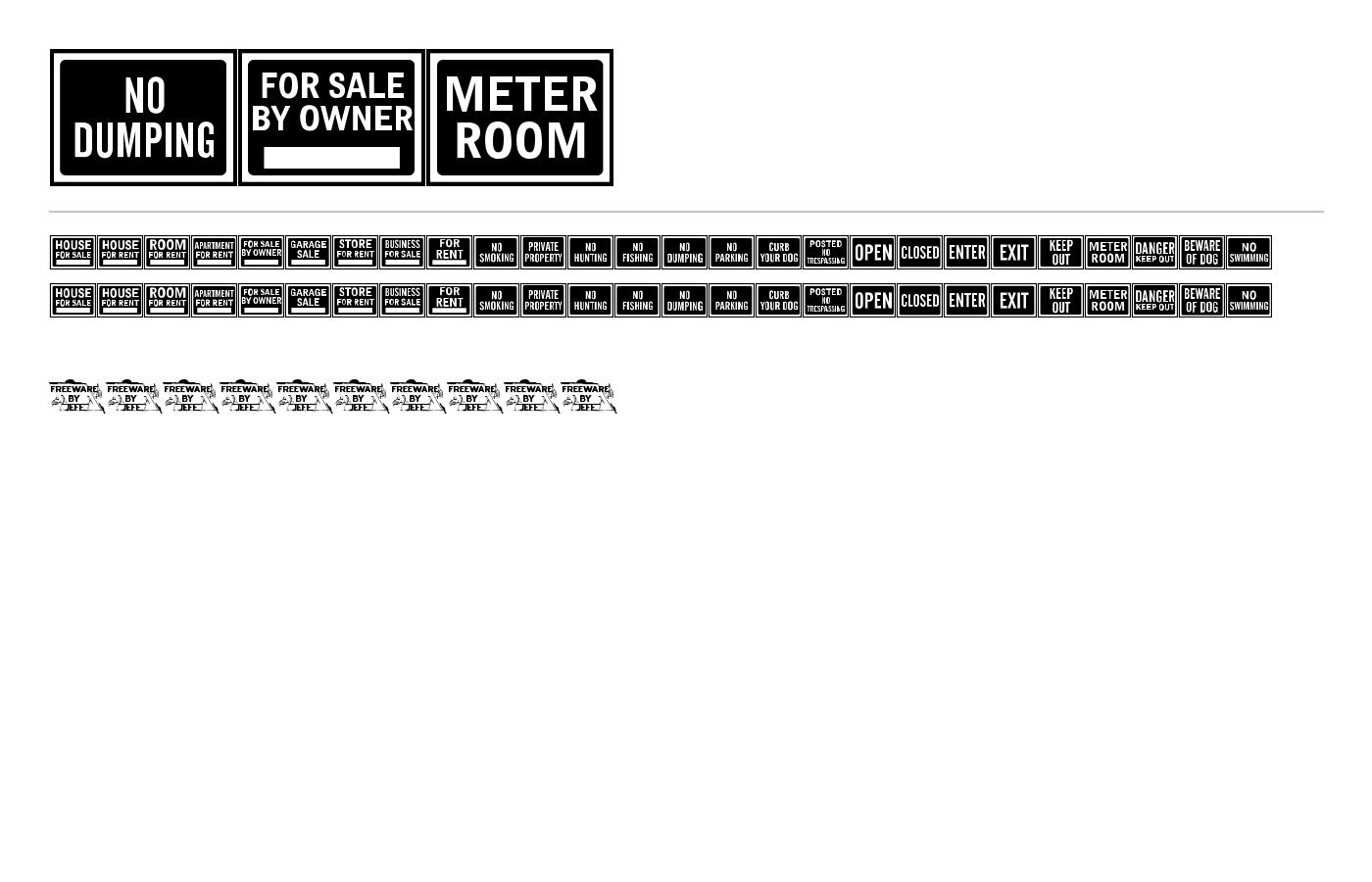
All-Purpose Signs JL is a bold, condensed sans serif font designed for clear, impactful signage. Its tall, narrow letters with uniform stroke weight and simple geometric shapes make it highly legible at a distance, perfect for warning signs, labels, and directional displays. This font conveys a practical, utilitarian feel, ideal for environments where clarity and attention are crucial.